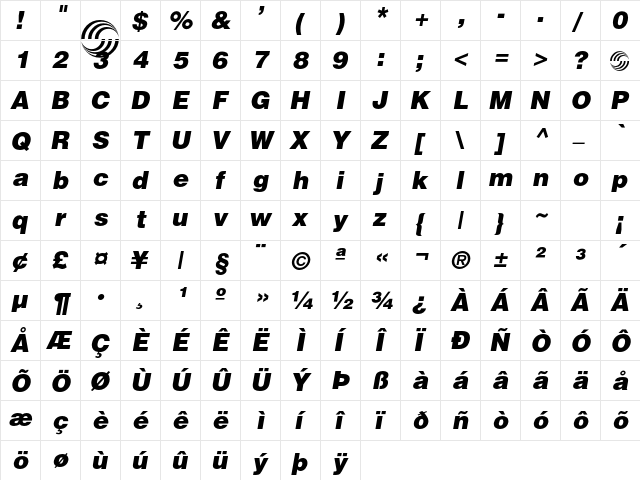
Airbus Special Italic
Design Context for Airbus Special Typeface
Airbus Special offers clean, dependable letterforms without strong stylistic allegiance, making it a practical choice for designers who need flexibility. The dynamic lean of this cut emphasises speed and emphasis in any layout.
Pro Tip: Use Airbus Special for emphasis, pull quotes, and subheadings where its slanted energy can add rhythm to the layout.